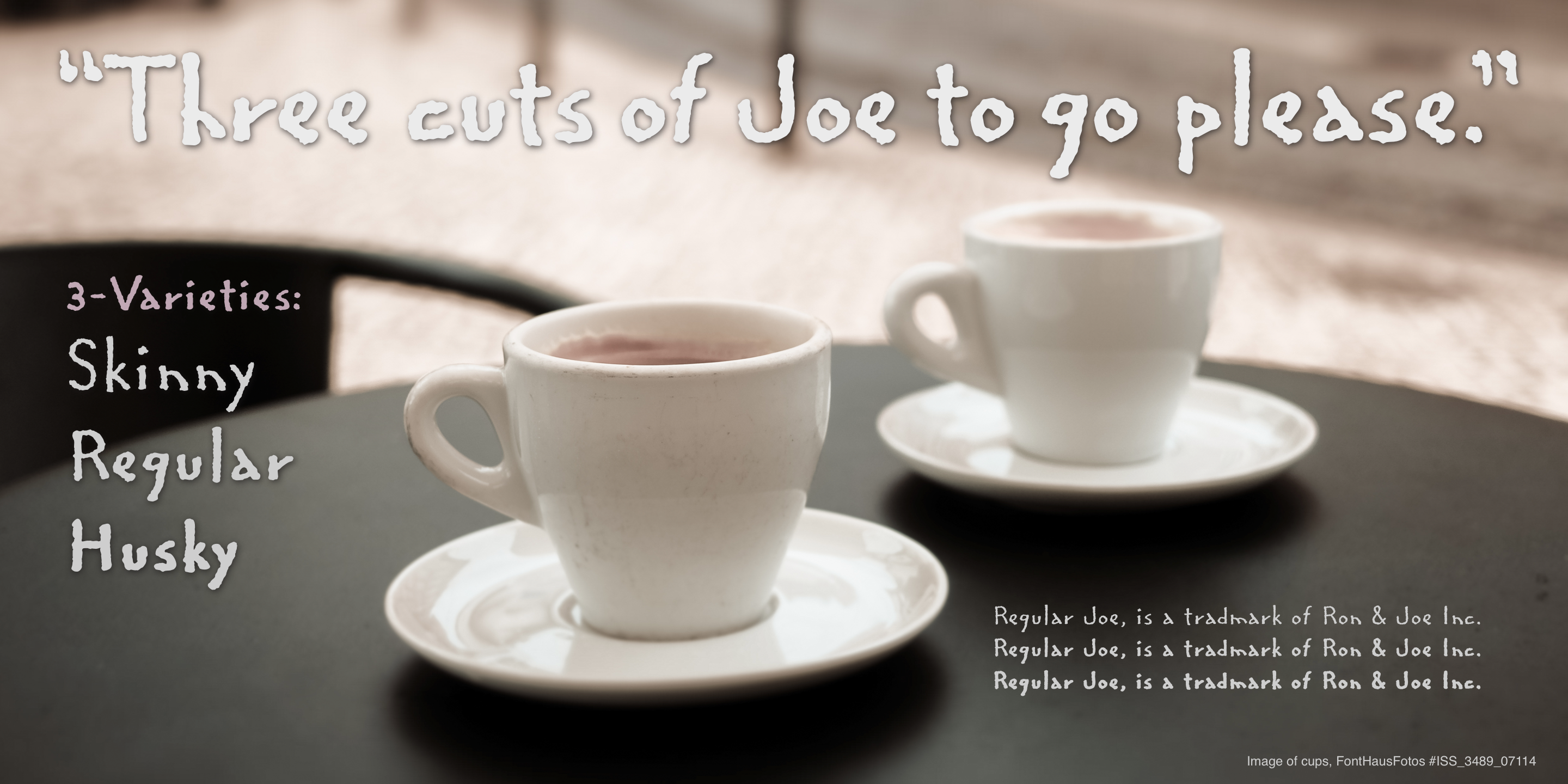
Regular Joe Font is perfect for casual dining establishments, neighborhood coffee shops, everyday product branding, local business marketing, down-to-earth service companies, community event promotions, approachable corporate communications, friendly small business signage, and any project requiring typography with genuine relatability and authentic everyday charm.
What makes Regular Joe Font exciting is its authentic relatability that captures the honest simplicity and genuine warmth of everyday American culture with letterforms that embody the straightforward character and unpretentious appeal of the regular person who values honesty, hard work, and authentic human connections. This approachable typeface reflects the democratic spirit of accessible design with clean construction that eliminates unnecessary complexity in favor of clear communication and trustworthy reliability. The font's everyday character and authentic sophistication make it perfect for brands that want to connect with regular people through honest messaging and genuine authenticity rather than artificial marketing polish.
The Regular Joe Font family includes regular and bold weights, featuring complete uppercase and lowercase alphabets, numerals, punctuation marks, and everyday design elements. The font maintains consistent approachable elegance throughout all weights while ensuring excellent readability for both friendly headlines and conversational text applications in community and business contexts.
Whether you're designing for local businesses, creating community event materials, or developing everyday branding with authentic relatability aesthetics, Regular Joe Font Free Download delivers unmatched genuine charm and approachable sophistication to your projects. This exceptional typeface transforms ordinary text into expressions of authentic connection that celebrate the value of honest communication and the timeless appeal of down-to-earth reliability. The font's relatable character makes it ideal for small businesses, community organizations, and brands that value authentic human connection. Download this remarkable font today and bring the genuine warmth of everyday authenticity to your design projects with honest charm and regular Joe reliability.